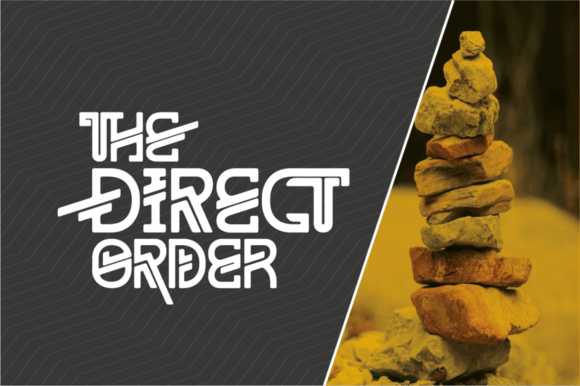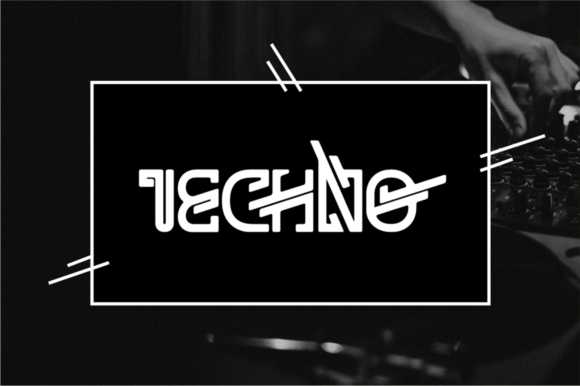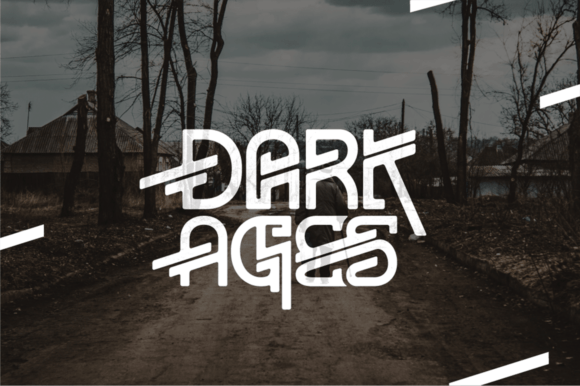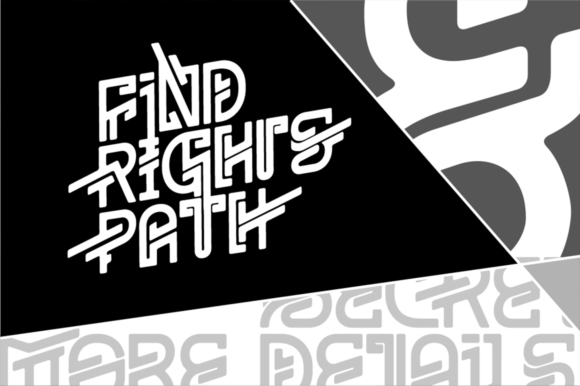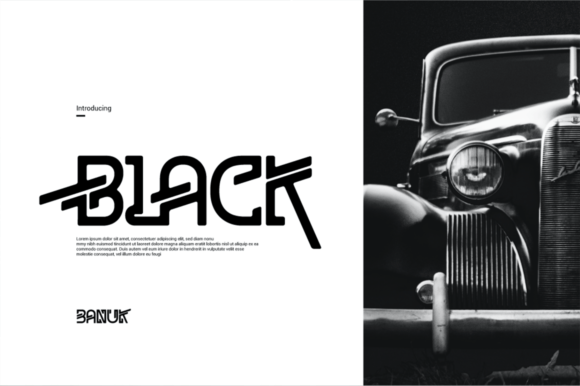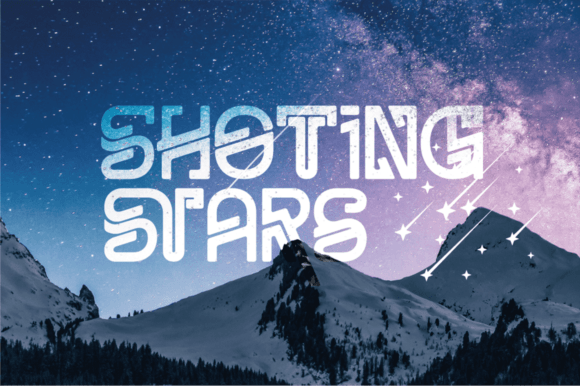
Introducing Banuk Font: The Ultimate Techno Font for Modern Designers
In the world of typography, fonts play a crucial role in conveying the tone and personality of a design. For designers and crafters looking for a unique and modern font to elevate their projects, Banuk Font is an excellent choice. This brand new techno font is designed with a slanted line accent, rounded edges, and a subtle space between letters, making it perfect for a wide range of applications.
What Makes Banuk Font Stand Out?
Banuk Font boasts a distinctive design that sets it apart from other fonts. Its slanted line accent gives it a dynamic and edgy feel, while the rounded edges add a touch of friendliness and approachability. The subtle space between letters ensures that the font is easy to read, even at smaller sizes. This combination of features makes Banuk Font an excellent choice for designers looking to create modern and engaging designs.
Uses of Banuk Font
Banuk Font is a versatile font that can be used in a variety of projects, including:
- Logo Font: Create a lasting impression with a unique and memorable logo that showcases your brand’s personality.
- Flyer Header: Grab attention with a bold and eye-catching header that sets the tone for your flyer.
- Name Card: Make a great first impression with a professional and stylish name card that features Banuk Font.
- Invitational Header: Create a sense of excitement and anticipation with a beautifully designed invitational header.
- Movie Poster: Add a touch of glamour and sophistication to your movie poster with Banuk Font.
- Poster: Whether it’s for an event, product, or service, Banuk Font is perfect for creating eye-catching posters.
- Website Header: Elevate your website’s design with a bold and modern header that features Banuk Font.
Why Designers and Crafters Love Banuk Font
Designers and crafters love Banuk Font for its unique combination of style and versatility. Here are just a few reasons why:
- Modern and Fresh: Banuk Font has a modern and fresh feel that’s perfect for designers looking to create contemporary designs.
- Easy to Read: The subtle space between letters and rounded edges make Banuk Font easy to read, even at smaller sizes.
- Highly Versatile: Banuk Font can be used in a wide range of projects, from logos and flyers to movie posters and website headers.
- Unique and Memorable: Banuk Font’s distinctive design makes it a great choice for designers looking to create unique and memorable designs.
Tips for Using Banuk Font
Here are a few tips for using Banuk Font in your designs:
- Experiment with Sizes: Banuk Font looks great at a variety of sizes, so don’t be afraid to experiment and find the perfect size for your project.
- Pair with Other Fonts: Banuk Font pairs well with other fonts, so try combining it with a serif or script font to create visual interest.
- Use it Boldly: Banuk Font is designed to make a statement, so don’t be afraid to use it boldly and prominently in your designs.
Banuk Font is an excellent choice for designers and crafters looking for a modern and versatile font to elevate their projects. With its unique combination of style and versatility, Banuk Font is perfect for a wide range of applications, from logos and flyers to movie posters and website headers. Whether you’re a seasoned designer or just starting out, Banuk Font is a great addition to your font library.